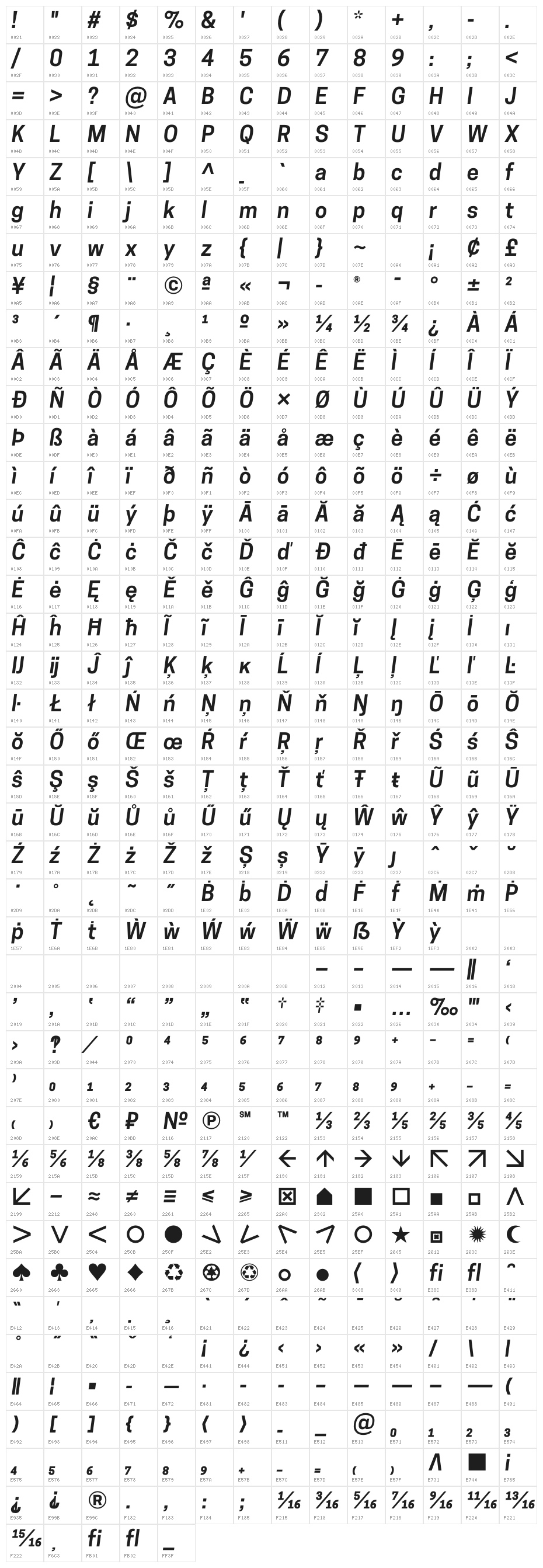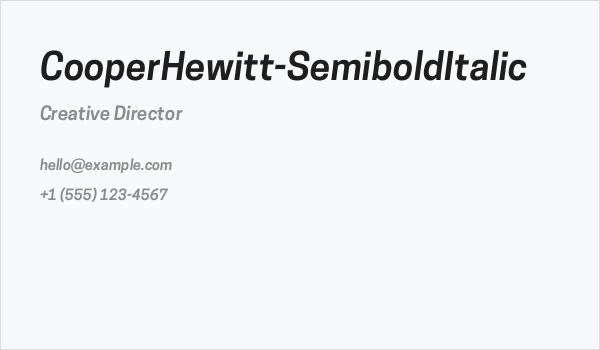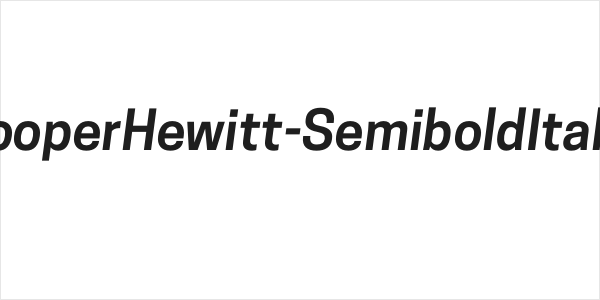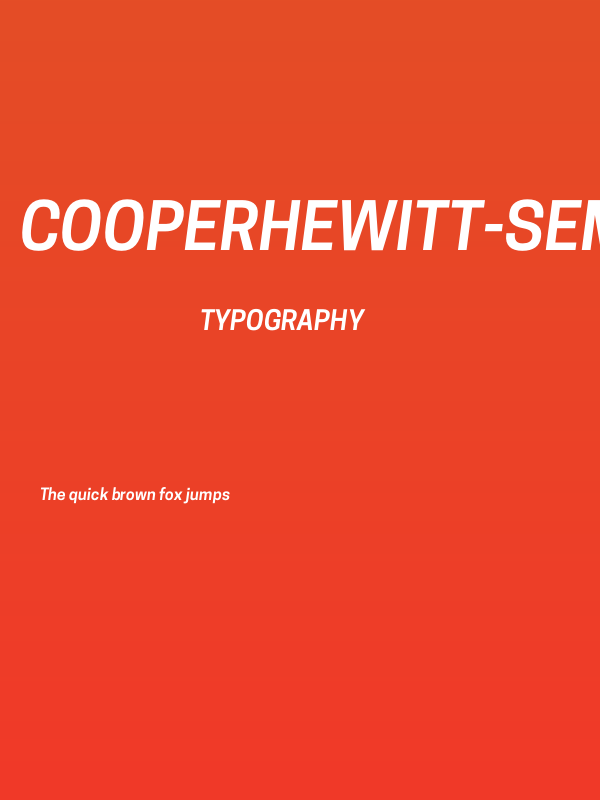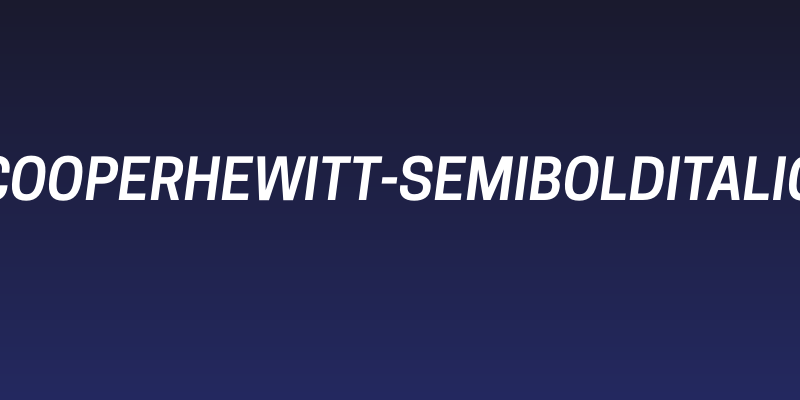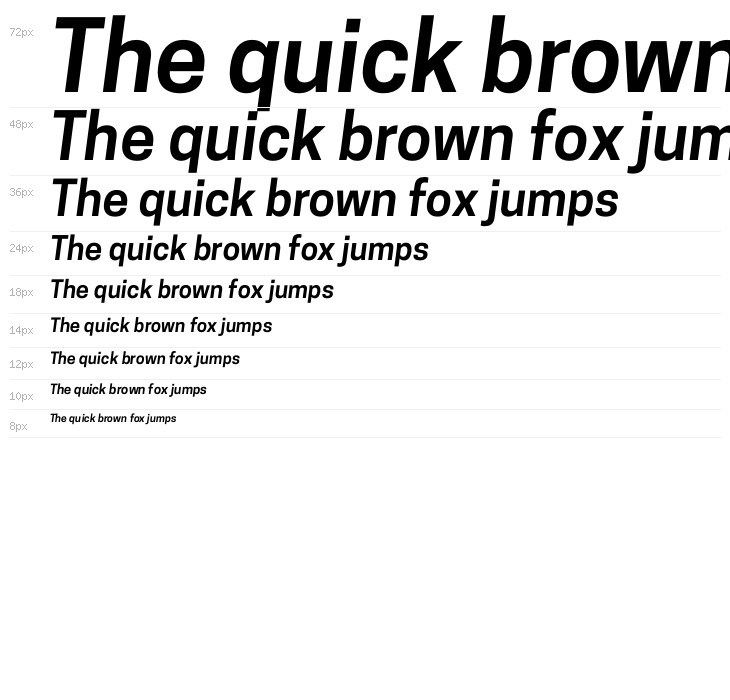
CooperHewitt-SemiboldItalic Font
CooperHewitt-SemiboldItalic Description
This font exhibits a clean and modern sans-serif style with a semi-bold weight and italicized form. The characters are slightly slanted, giving a dynamic and forward-moving appearance. The strokes are consistent in thickness, providing a medium contrast that enhances readability while maintaining a sleek aesthetic. The uppercase and lowercase letters are well-proportioned, and the numerals are clear and distinct. Special characters are designed to complement the overall style, making the font versatile for various applications.